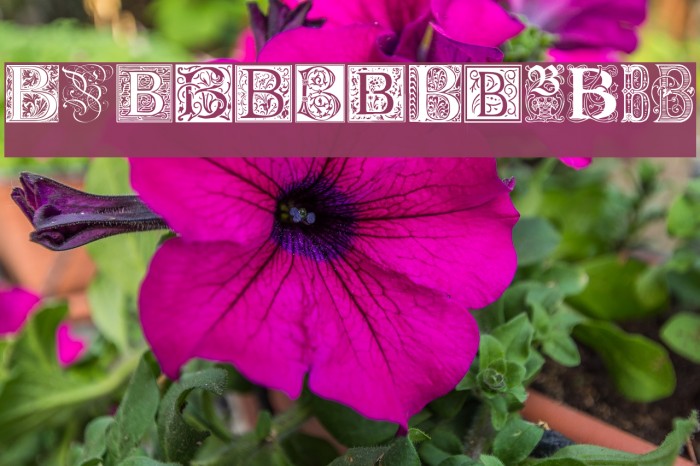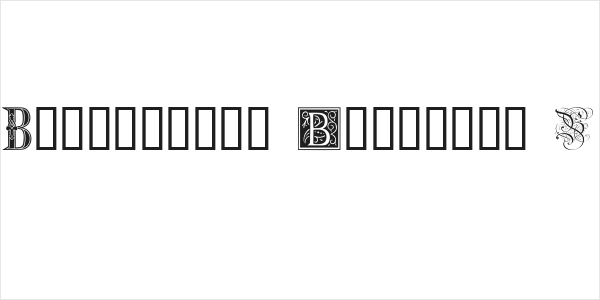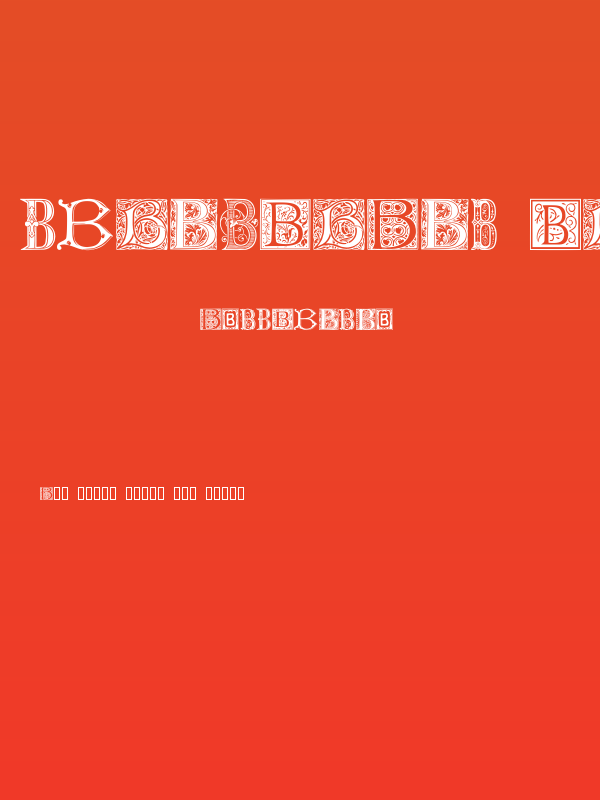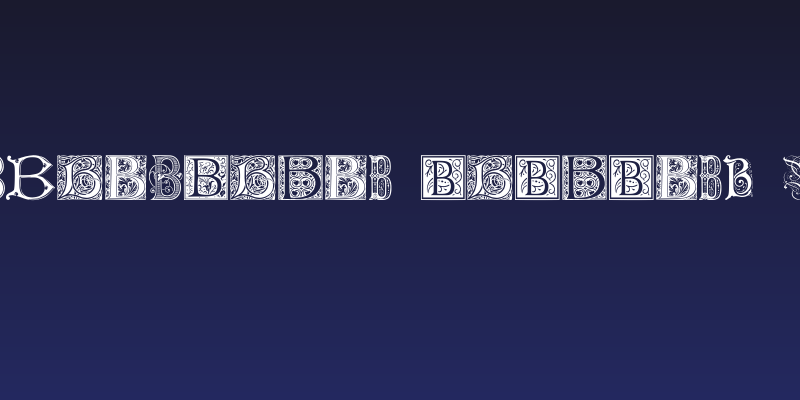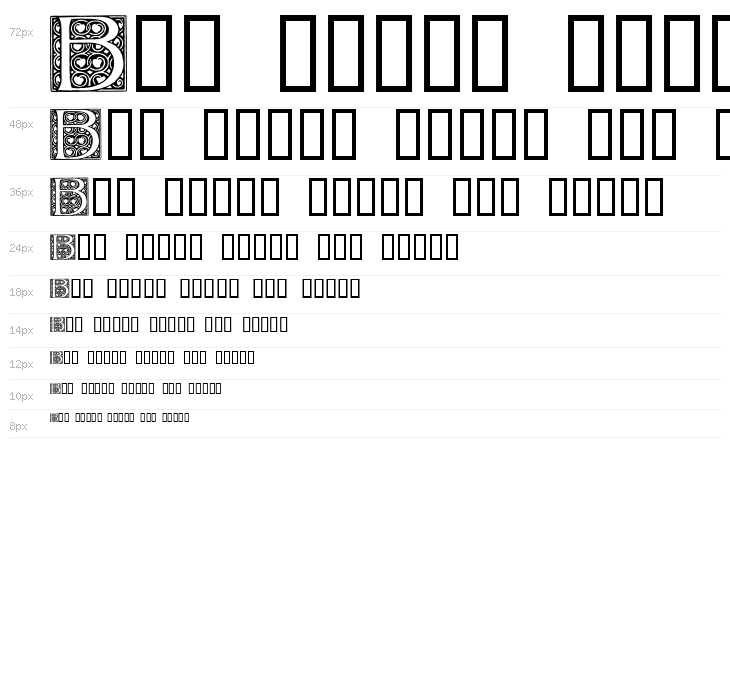
Ornamental Initials B Font
Ornamental Initials B Description
This font is an elaborate and decorative style, characterized by its intricate designs and ornamental elements. Each letter is enclosed within a square frame, featuring detailed floral and geometric patterns that give it a luxurious and vintage feel. The letters are bold and prominent, making them stand out against the ornate backgrounds. This style is reminiscent of medieval manuscripts or classical engravings, where each initial is a work of art in itself. The font is primarily uppercase, with each letter being a unique piece of decorative art. The intricate details and embellishments make it suitable for projects that require a touch of elegance and historical charm.
| Use Case | Logos, Headlines, Decorative elements |
| Proposed Projects | Ideal for wedding invitations, luxury branding, vintage book covers, and decorative posters. |